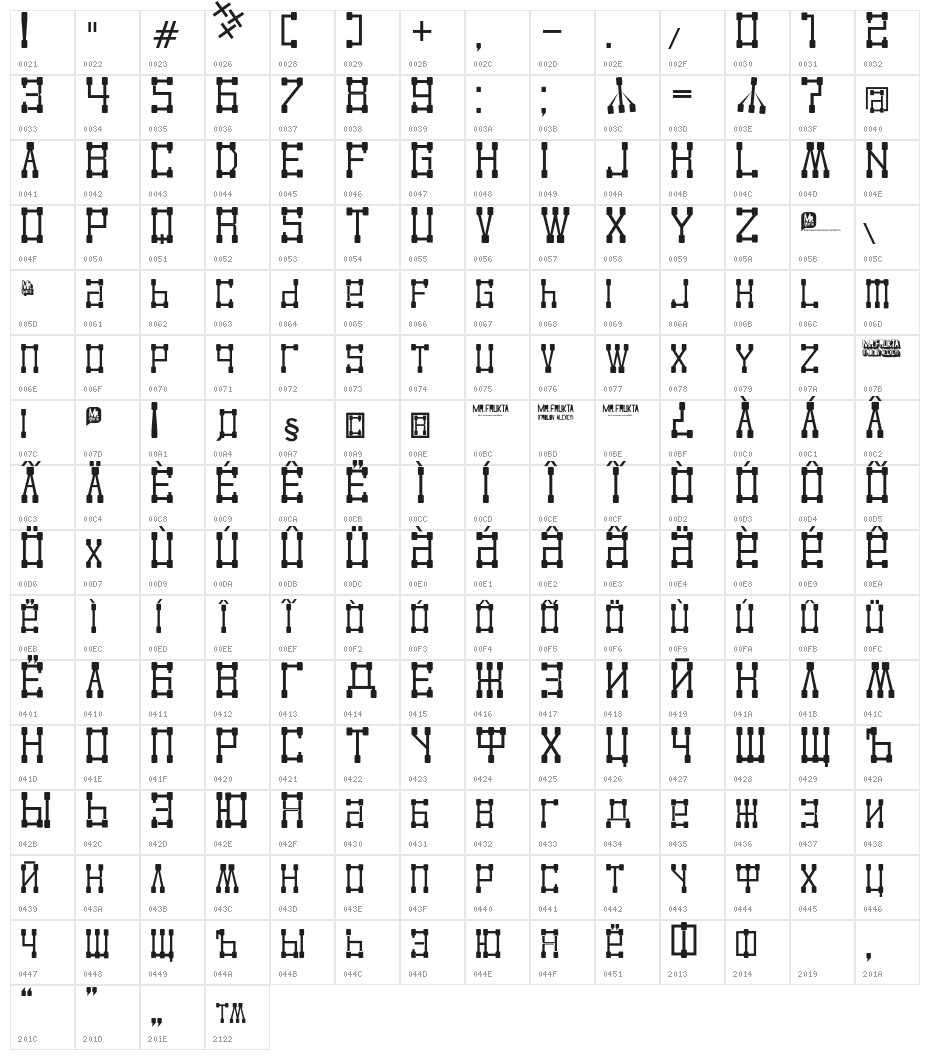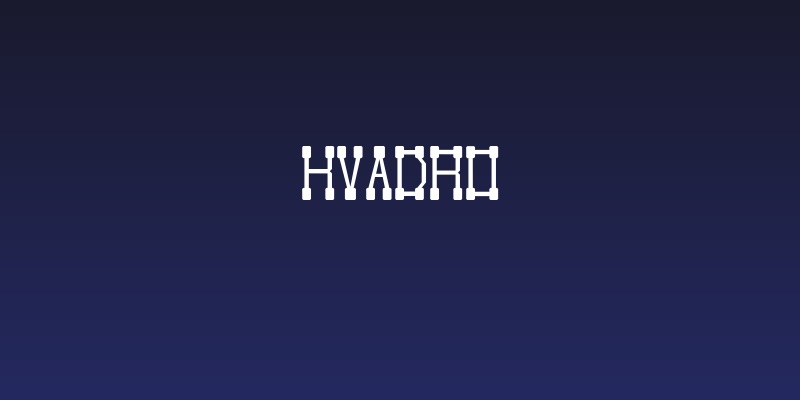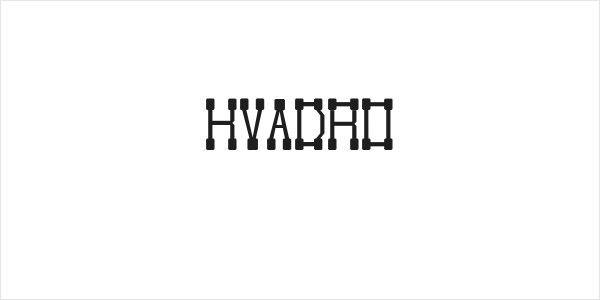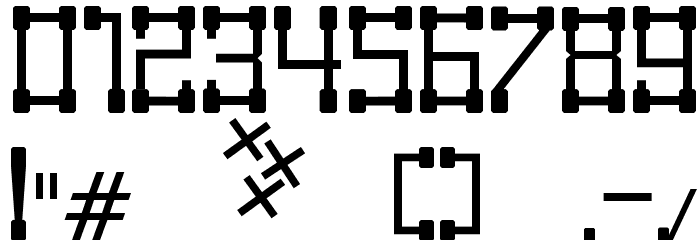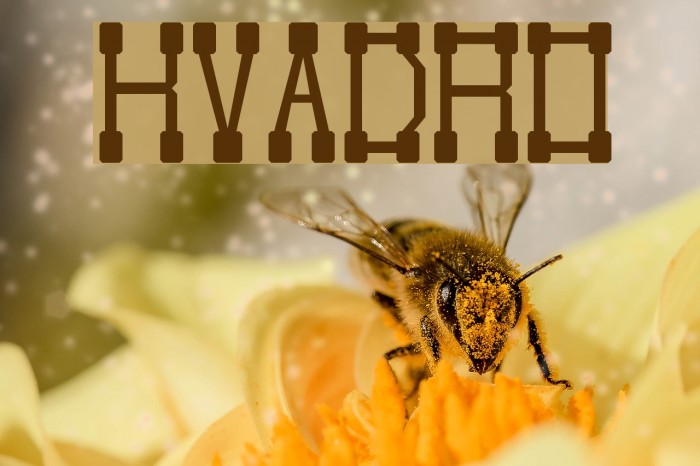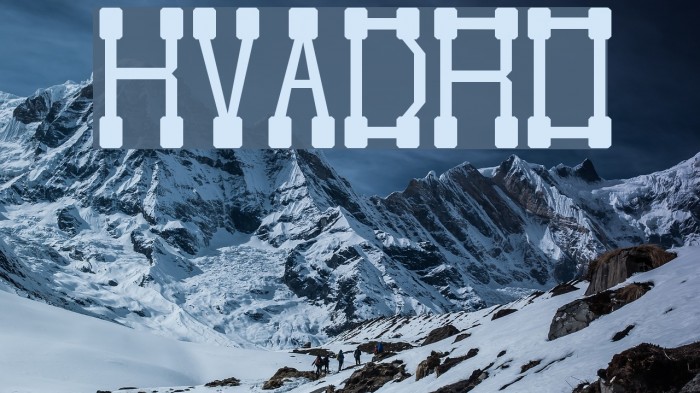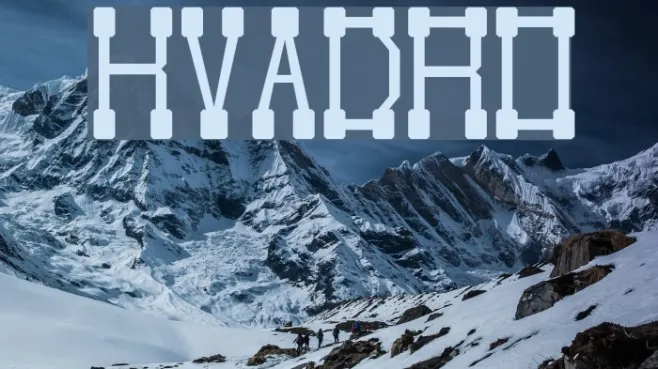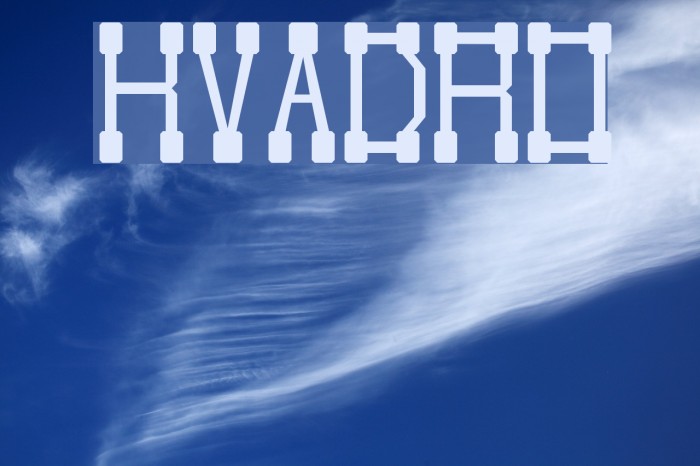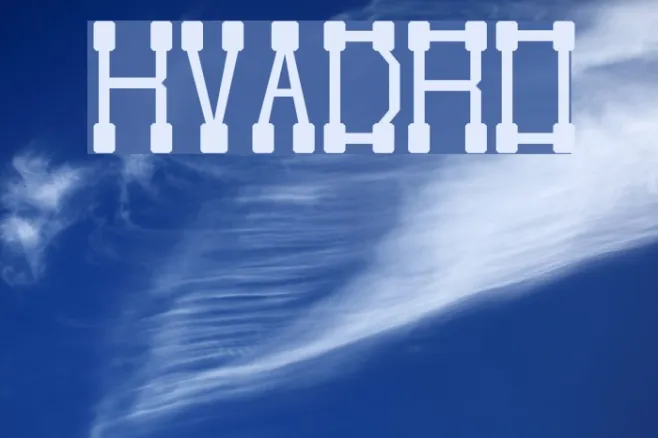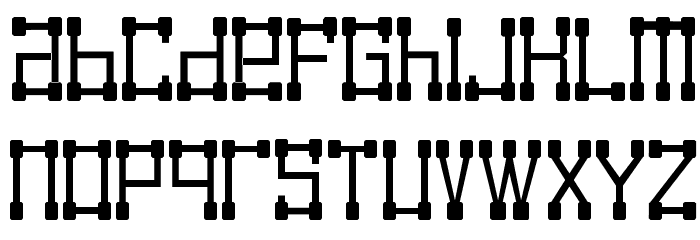
KVADRO Font
KVADRO Description
This font features a unique, geometric design with a modular structure. Each character is composed of a series of connected squares and rectangles, giving it a distinct, mechanical appearance. The uniformity in the design creates a cohesive look across all characters, while the bold, blocky shapes ensure high legibility. The font's style is reminiscent of digital or electronic displays, making it suitable for modern, tech-oriented projects. Its strong visual impact and futuristic aesthetic make it ideal for use in branding, advertising, and digital interfaces.
| Use Case | Logos, Headlines, Digital interfaces |
| Proposed Projects | Ideal for tech branding, digital interfaces, and modern advertising. |